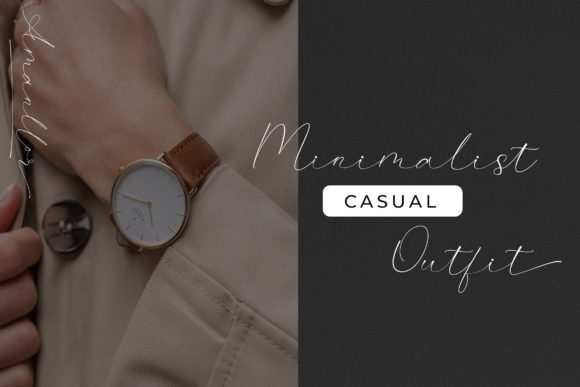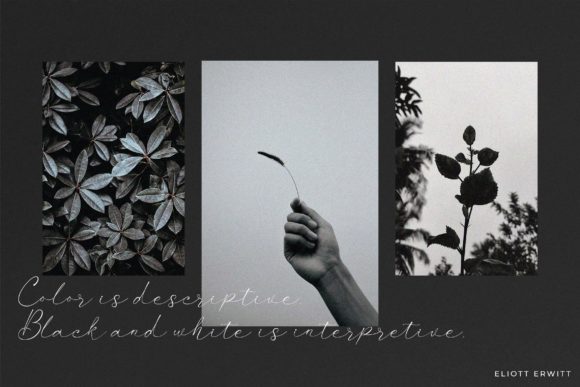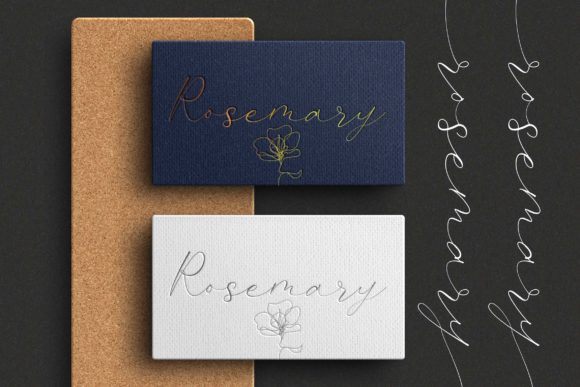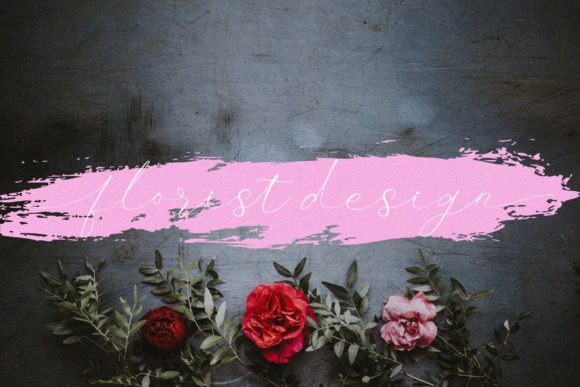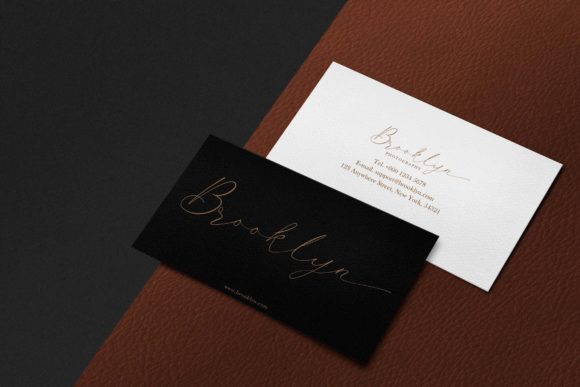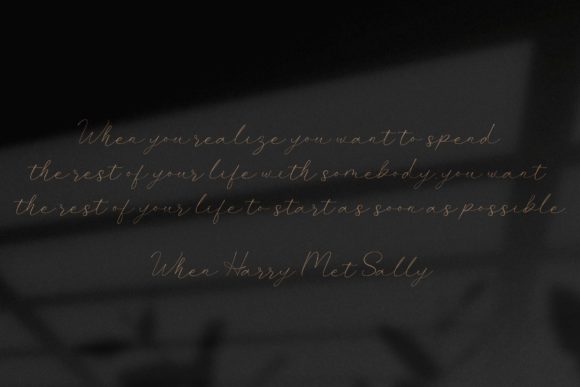
Amanllor Font: Elevate Your Designs with Elegance and Sophistication
In the world of typography, a font can make or break a design. For those seeking elegance and sophistication, Amanllor Font is a stunning choice. This thin lettered and graceful script font is sure to captivate your audience with its ravishing style. Whether you’re a designer, crafter, or simply a creative enthusiast, Amanllor Font is an excellent addition to your typographic arsenal.
Unveiling Amanllor Font
Amanllor Font boasts a delicate and refined aesthetic, perfect for creating beautiful and eye-catching designs. Its thin lettering and flowing script style evoke a sense of luxury and sophistication, making it an ideal choice for high-end projects. From wedding invitations and stationary art to social media posts and more, Amanllor Font is versatile and adaptable.
Key Features of Amanllor Font
- Thin Lettered and Graceful Script Style: Amanllor Font features a delicate and refined script style, perfect for creating elegant and sophisticated designs.
- PUA Encoded: Amanllor Font is PUA (Private Use Area) encoded, allowing easy access to all glyphs and swashes. This means you can effortlessly incorporate the font’s beautiful alternates and ornaments into your designs.
- Versatile and Adaptable: Amanllor Font is suitable for a wide range of design applications, from wedding invitations and stationary art to social media posts and more.
Design Applications for Amanllor Font
Amanllor Font’s versatility and elegance make it an excellent choice for various design projects. Here are some ideas to get you started:
- Wedding Invitations: Create stunning wedding invitations that set the tone for a luxurious and unforgettable celebration.
- Stationary Art: Design beautiful stationary art, including letterheads, business cards, and journals, that exude elegance and sophistication.
- Social Media Posts: Elevate your social media presence with eye-catching posts that showcase Amanllor Font’s refined aesthetic.
- Branding and Packaging: Use Amanllor Font to create luxurious branding and packaging designs that reflect your brand’s high-end values.
Tips for Working with Amanllor Font
To get the most out of Amanllor Font, here are some tips to keep in mind:
- Experiment with Font Sizes and Styles: Play with different font sizes and styles to find the perfect combination for your design.
- Pair with Complementary Fonts: Pair Amanllor Font with complementary fonts to create a unique and visually appealing typography.
- Take Advantage of PUA Encoding: Use Amanllor Font’s PUA encoding to access a wide range of glyphs and swashes, adding an extra layer of creativity to your designs.
Amanllor Font is a stunning addition to any designer’s or crafter’s typographic collection. Its thin lettered and graceful script style, combined with PUA encoding, make it an excellent choice for creating elegant and sophisticated designs. Whether you’re working on wedding invitations, stationary art, social media posts, or more, Amanllor Font is sure to elevate your designs to new heights.